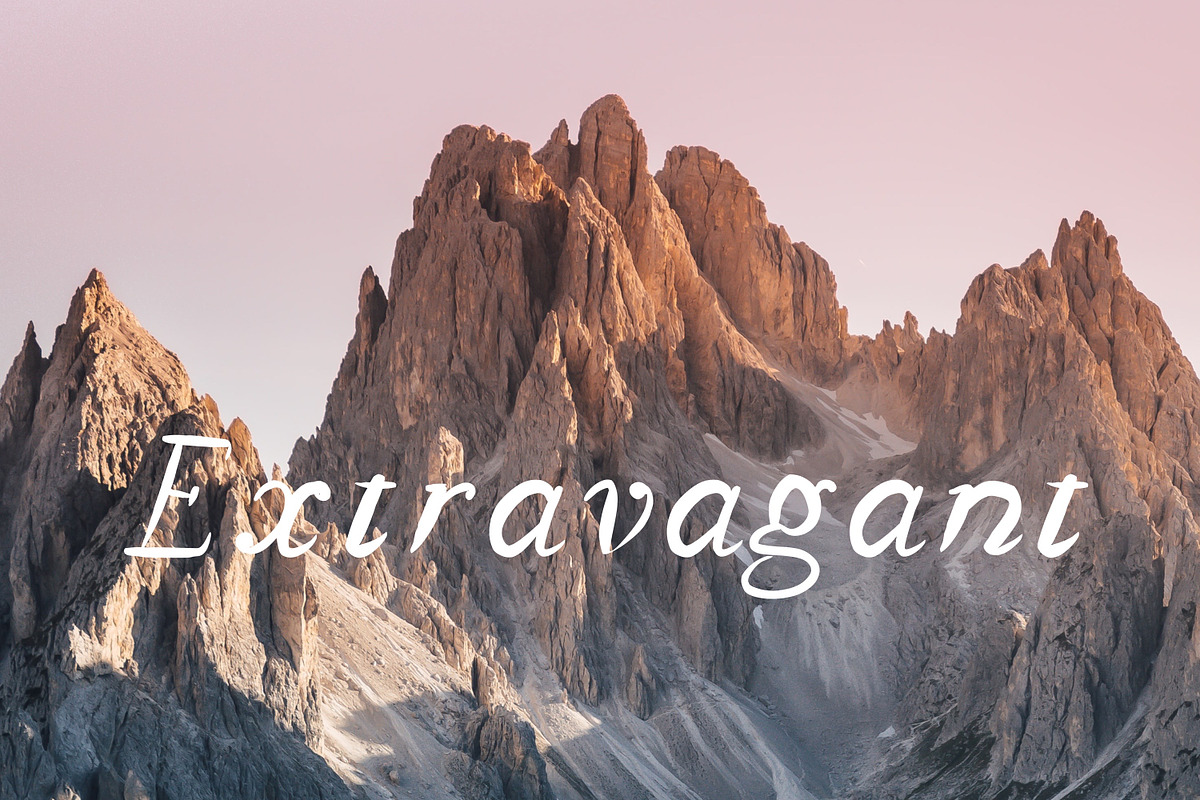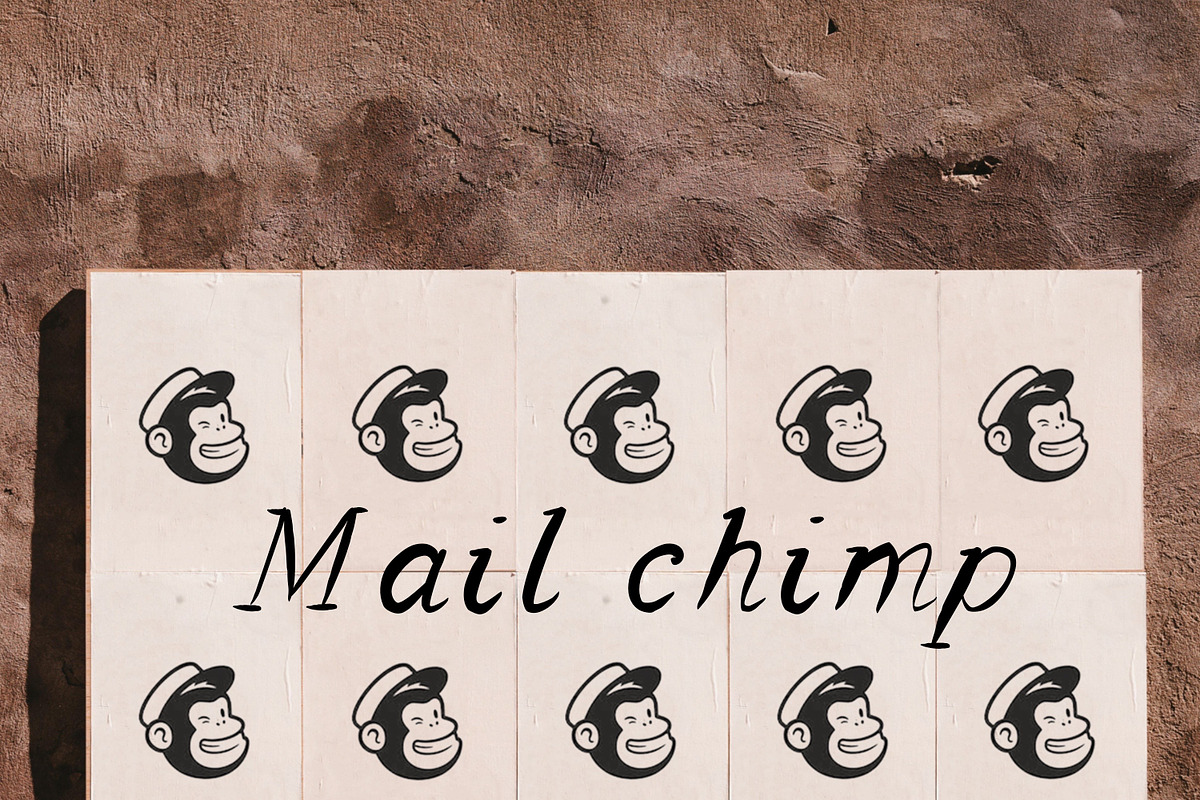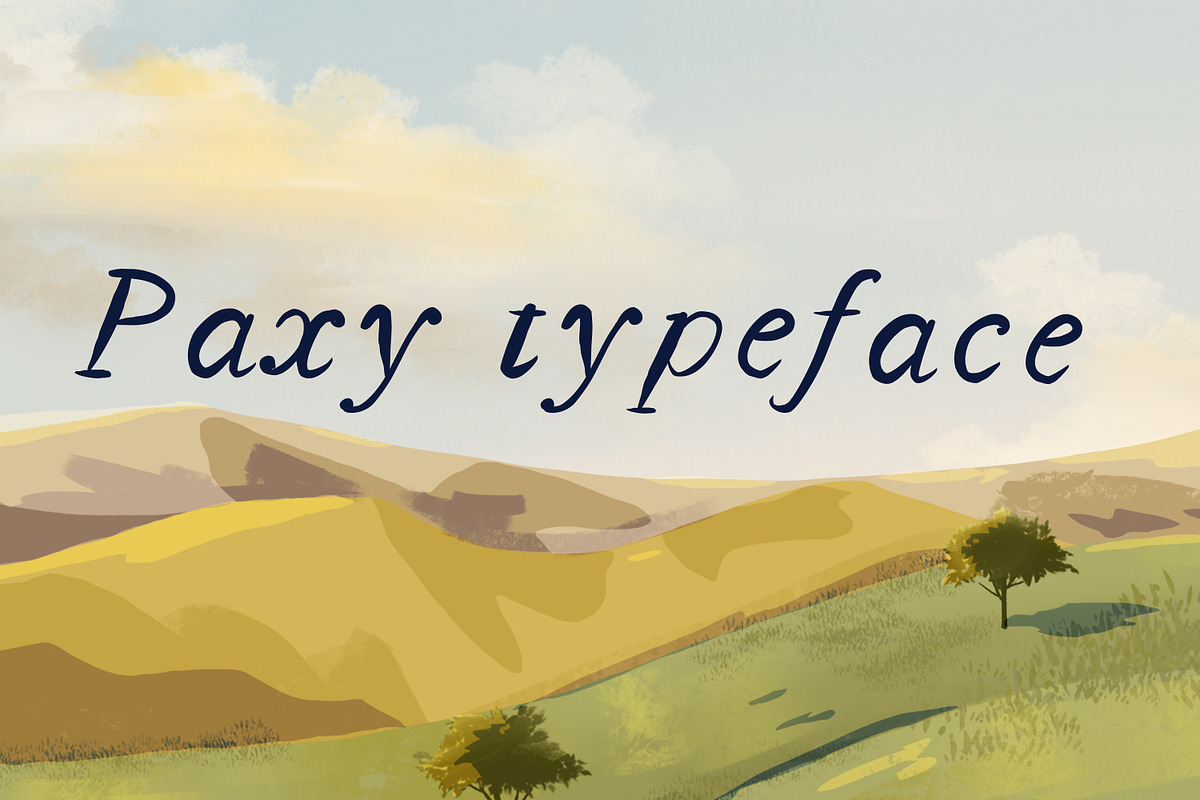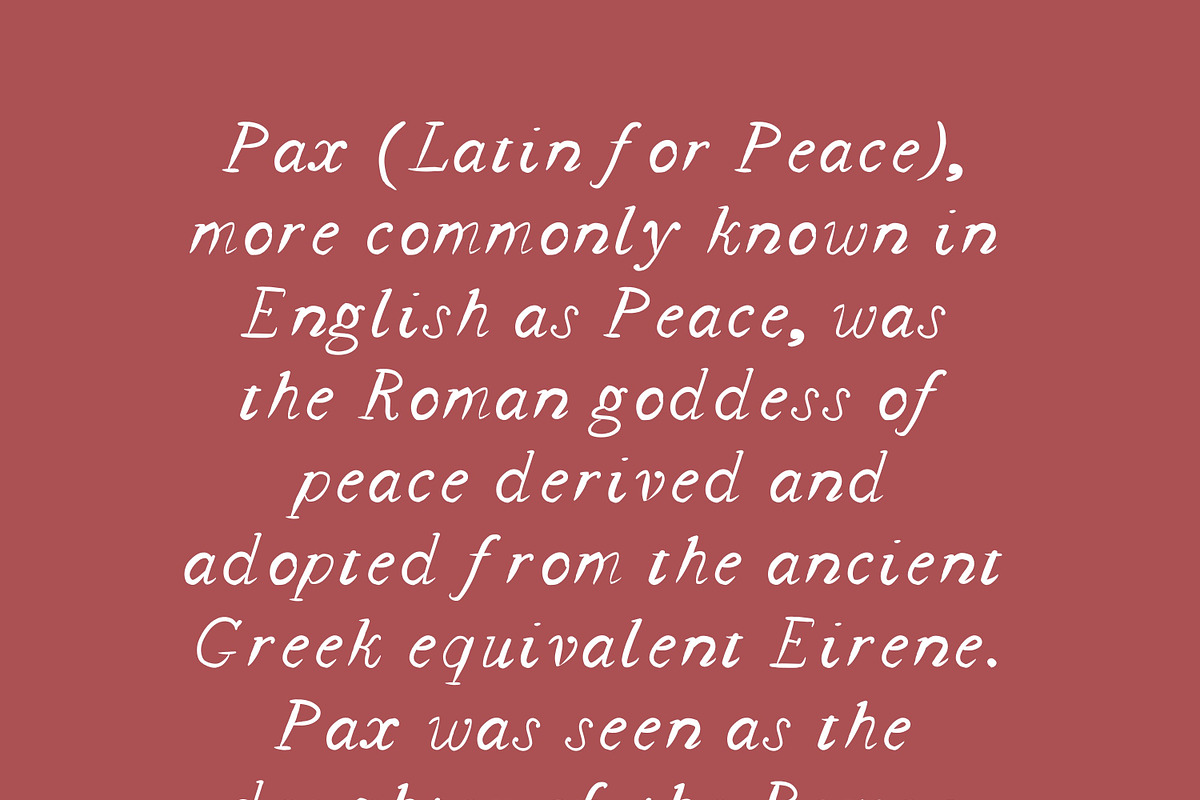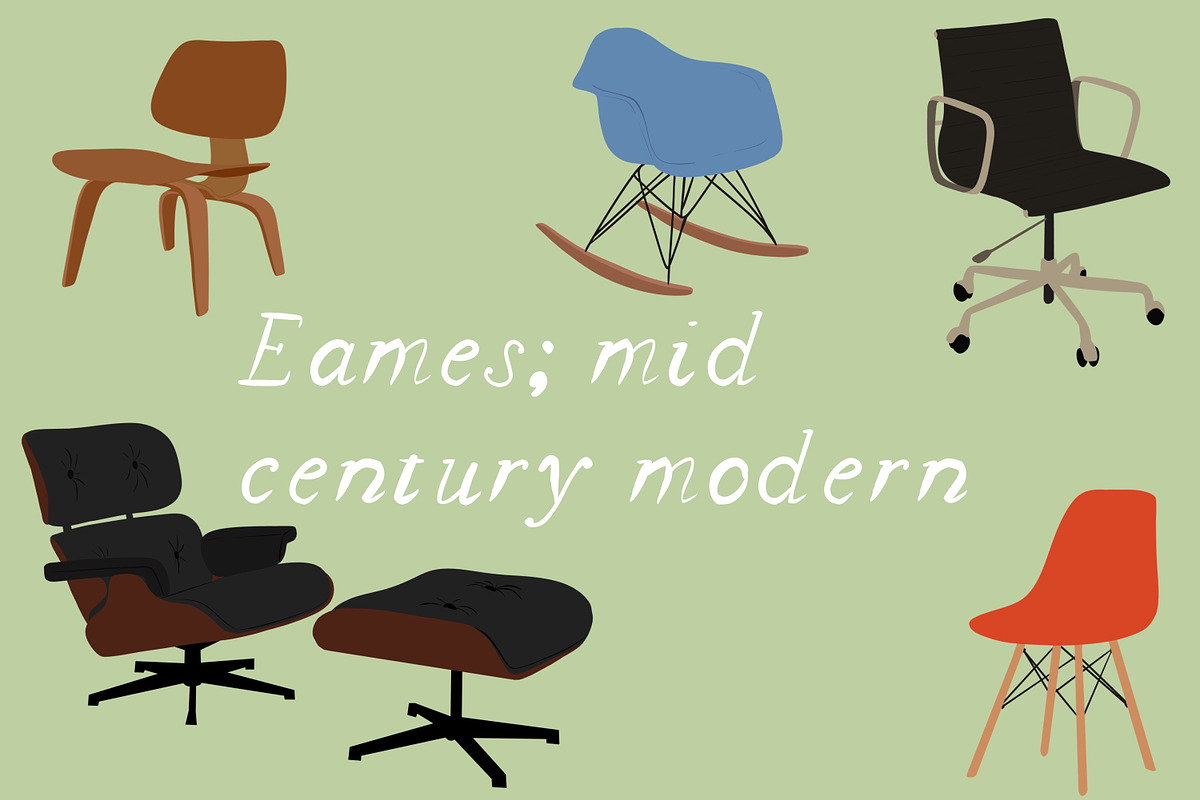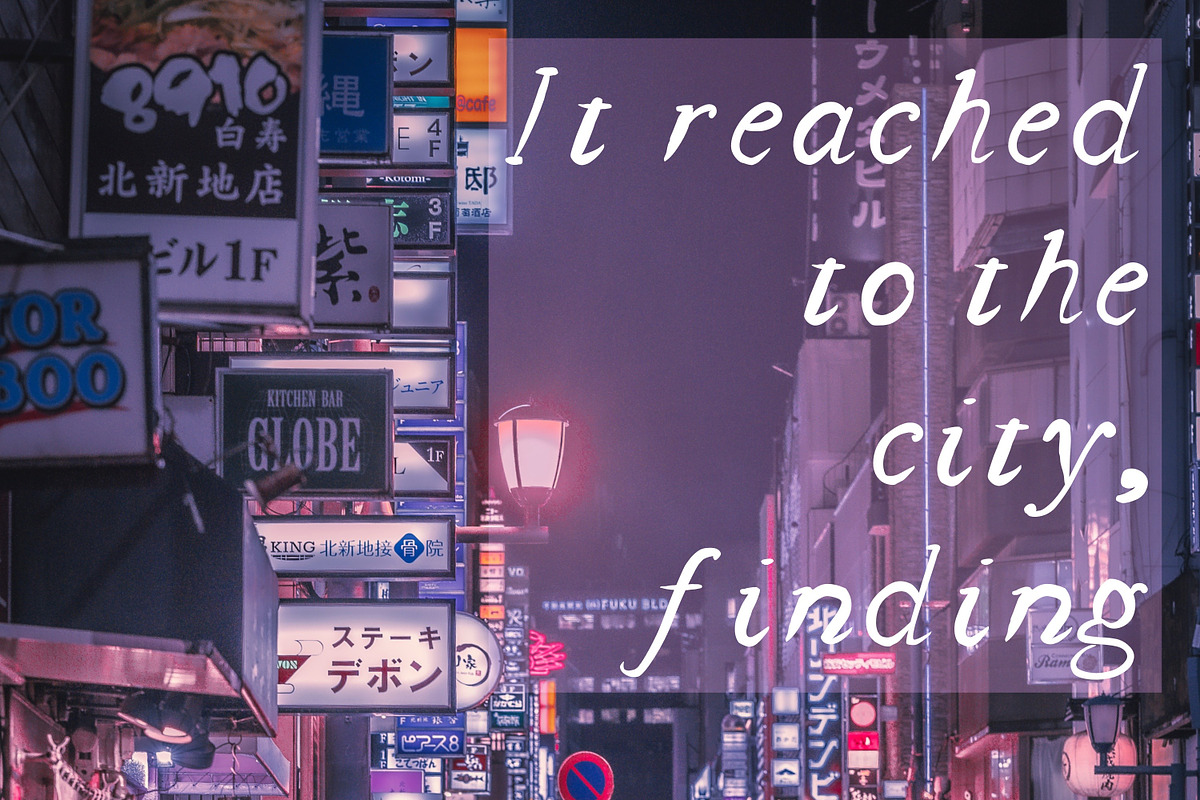
Paxy funky hand done typeface
funky, cute and minimal font, great for bringing a bit of personality to any design, logo, book, blog or website! (or literally anything else). Perfect for a bit of character!
Hand made my me :)